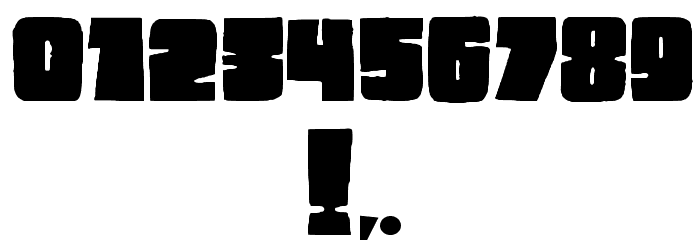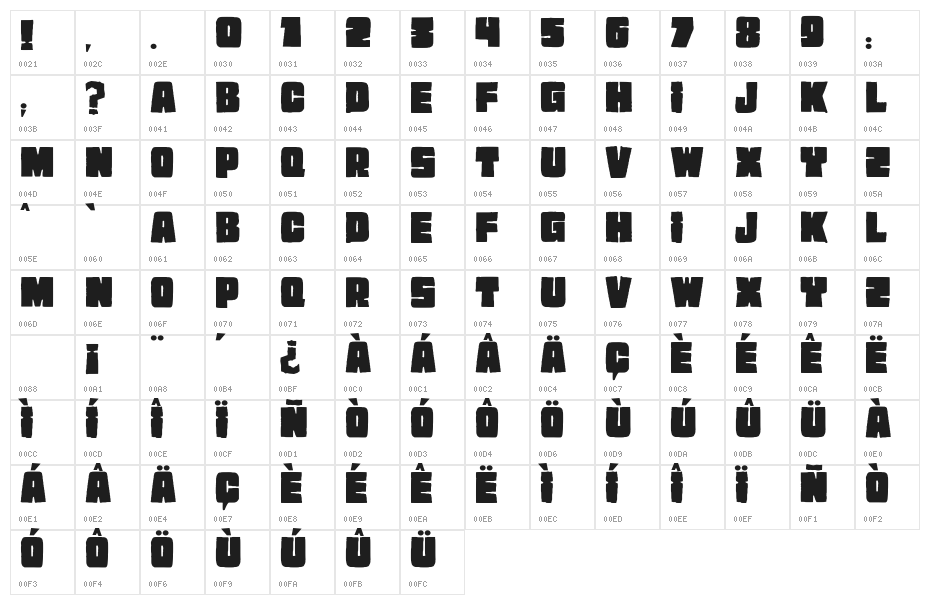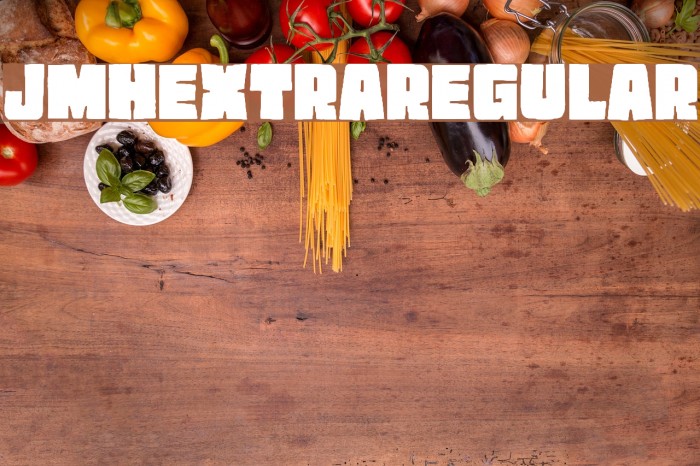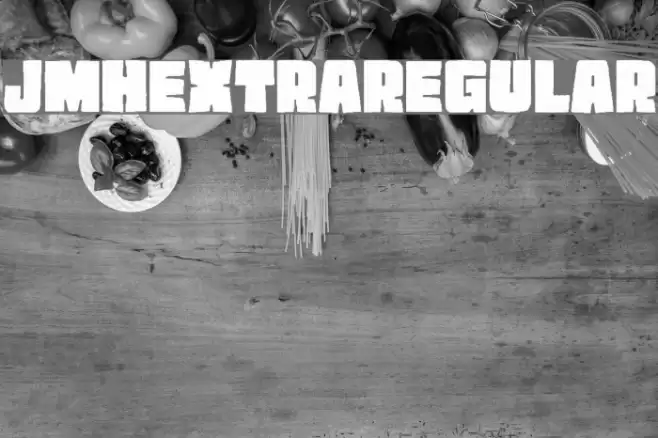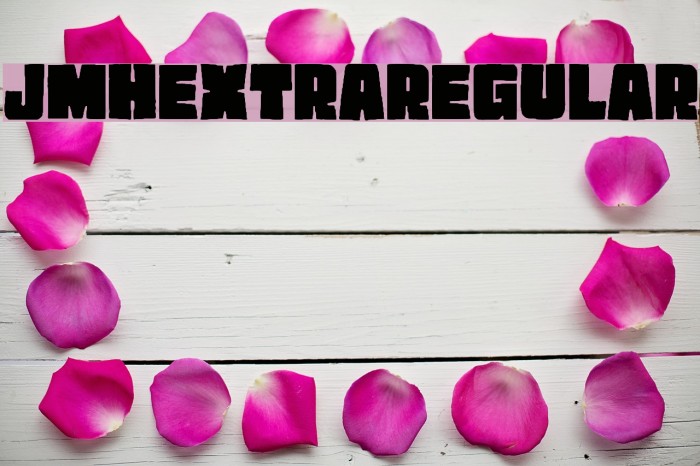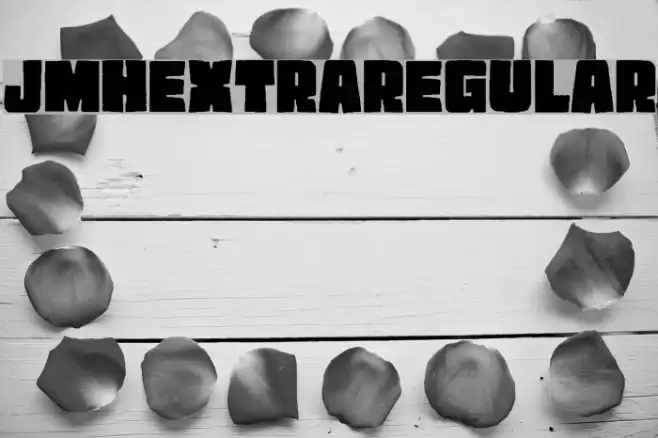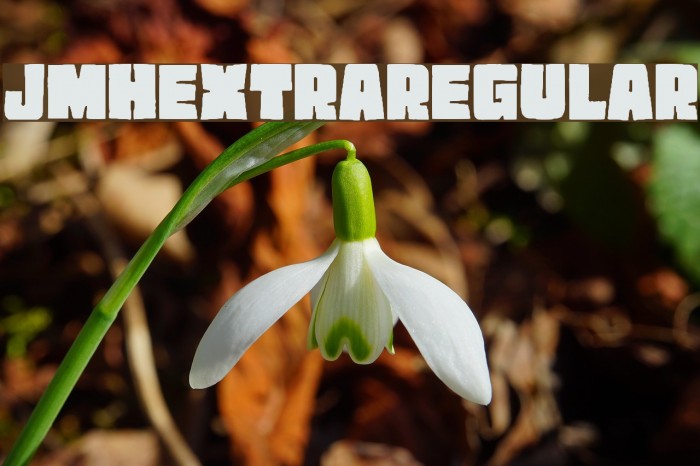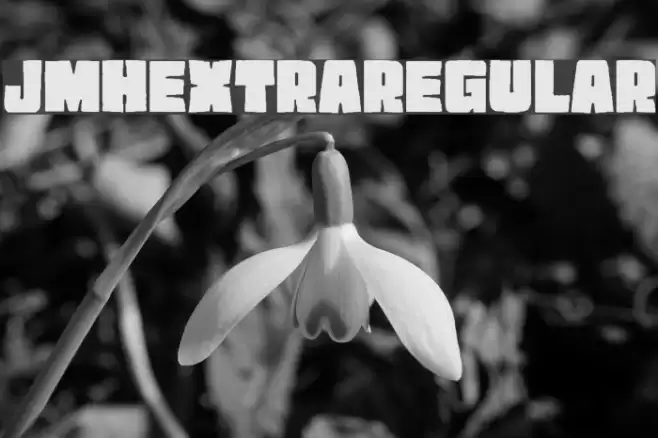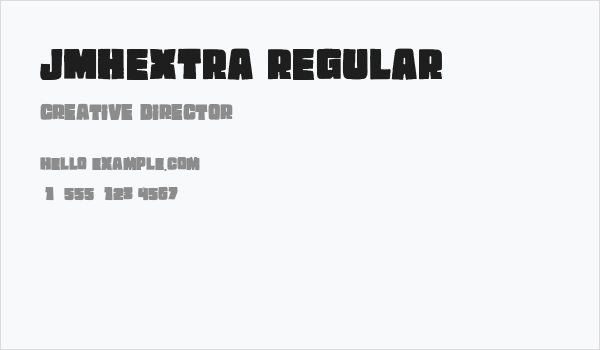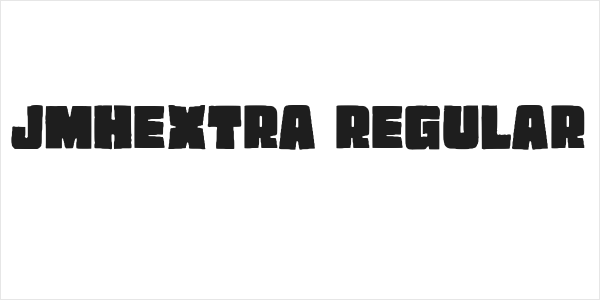
JMHEXTRA-Regular Font
JMHEXTRA-Regular Description
This bold, impactful font features a rugged and distressed appearance, making it ideal for projects that require a strong, eye-catching typeface. The characters are blocky and substantial, with uneven edges that give a sense of texture and depth. The uppercase and lowercase letters maintain a consistent style, while the numerals and special characters complement the overall aesthetic. The font's heavy weight and distinctive style make it suitable for headlines, posters, and other display purposes where a commanding presence is needed.